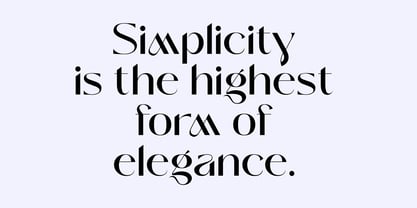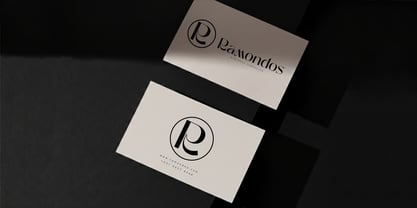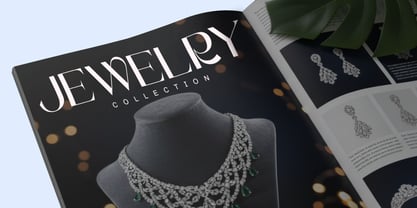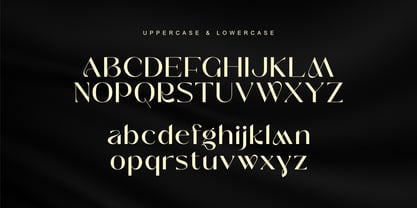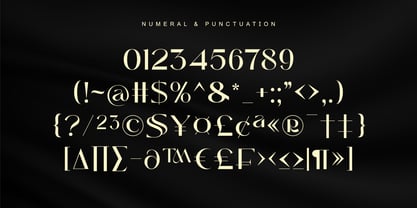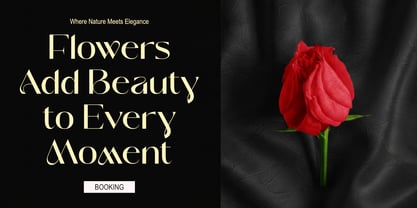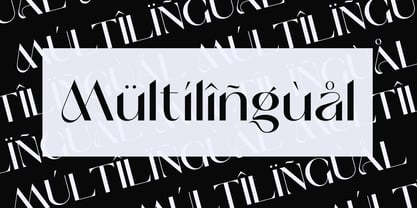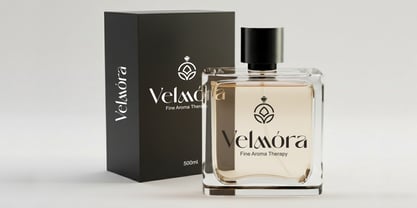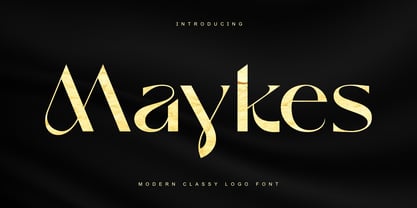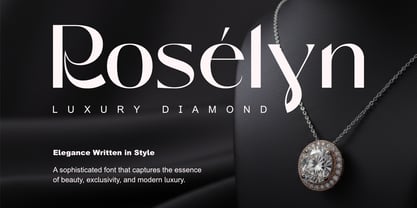
Makyes
Die Schriftfamilie Makyes wurde von Saiful Anwar entworfen und von Sealoung veröffentlicht. Makyes enthält 1 Stile. Mehr über diese Familie
Makyes is a modern classy logo font crafted to deliver elegance, confidence, and timeless sophistication in contemporary design. Designed with clean forms and refined details, Makyes blends modern minimalism with a luxurious aesthetic, making it an excellent choice for high-end branding and stylish visual identities. This font is perfect for designers who want to create logos that feel exclusive, polished, and memorable. The Story Behind Makyes Makyes was created with the vision of modern luxury—where simplicity meets elegance. Inspired by premium fashion brands, upscale boutiques, and refined corporate identities, Makyes embodies clarity, balance, and class. Every curve and stroke is designed to feel intentional and graceful, allowing your designs to communicate prestige without excess. Whether used for logos, branding, or editorial headlines, Makyes brings a strong yet elegant presence to any project. Makyes Font Features Modern Classy Design: Clean, elegant letterforms ideal for luxury logos and premium branding. Versatile Usage: Perfect for logos, brand identities, headlines, packaging, and editorial designs. High Readability: Balanced proportions ensure clarity while maintaining a refined visual style. Timeless Aesthetic: Combines modern simplicity with classic elegance for a lasting impression. Creative Previews Included: Features inspirational previews to showcase the font’s potential. Perfect For Luxury Branding: Fashion brands, beauty products, jewelry, perfumes, and upscale businesses. Logo Design: Create strong, elegant, and professional logo identities. Editorial & Magazine Design: Ideal for headlines, covers, and stylish layouts. Packaging & Labels: Enhance product presentation with a modern classy look. Marketing & Advertising: Elevate digital and print campaigns with refined typography. Elevate your designs with Makyes and bring modern elegance and classy sophistication to every logo and brand you create.